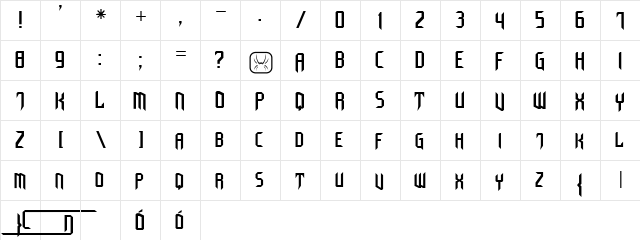
Cyberchild CE Regular
Design Context for Cyberchild CE Typeface
Cyberchild CE channels digital-age aesthetics through its sharp, structured letterforms — ideal for brands that want to signal innovation.
Pro Tip: Use Cyberchild CE in combination with a neutral sans for body text. Let it define the brand voice in headlines while keeping reading comfortable elsewhere.